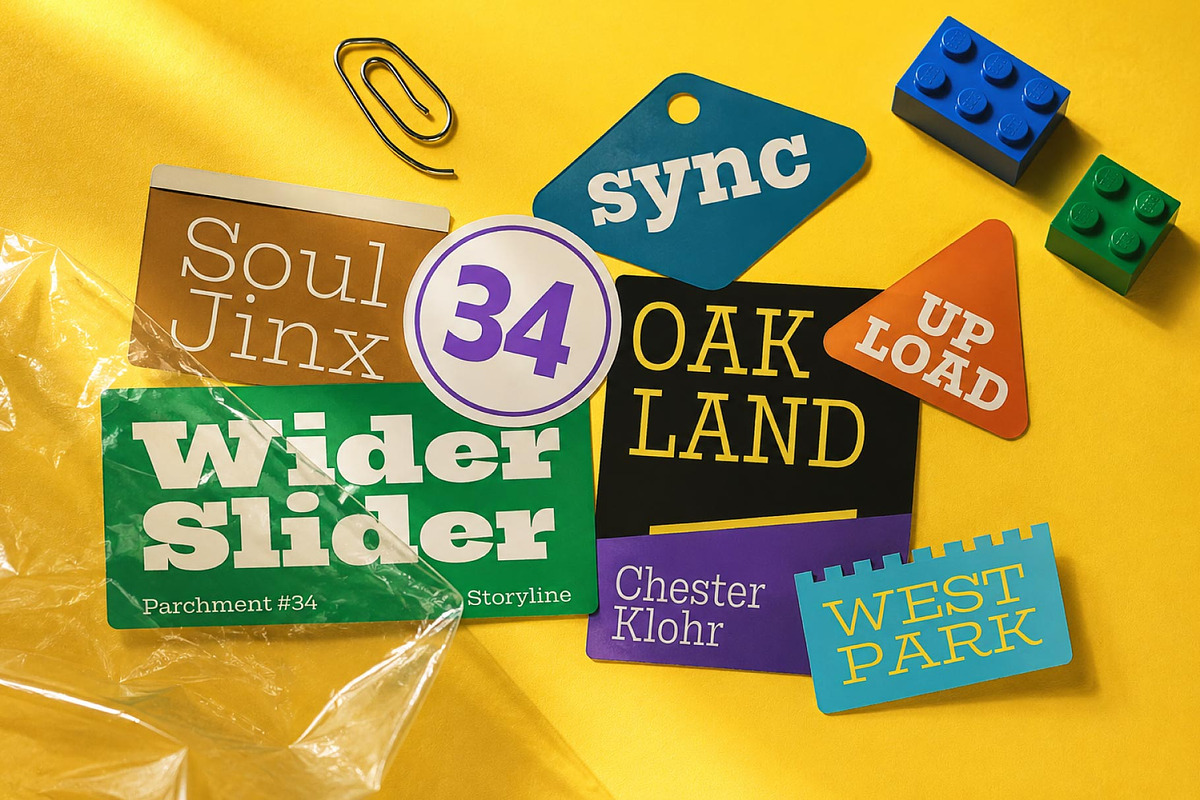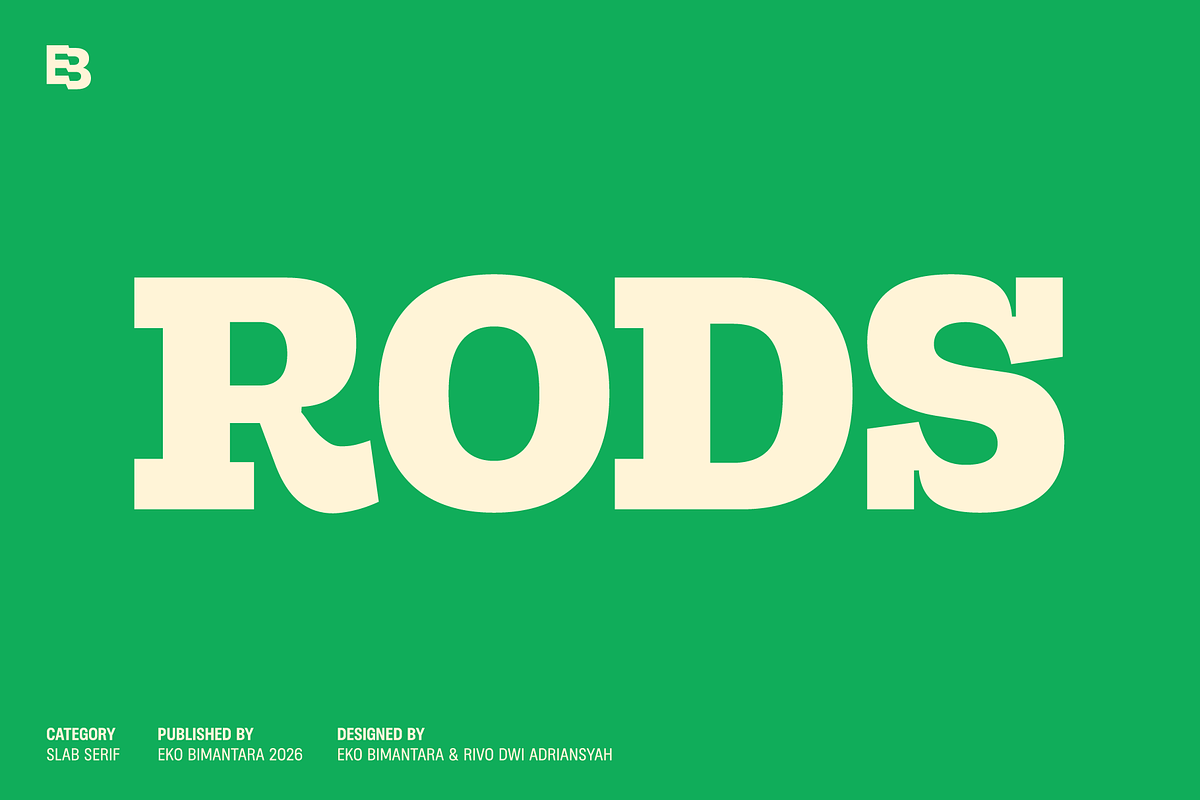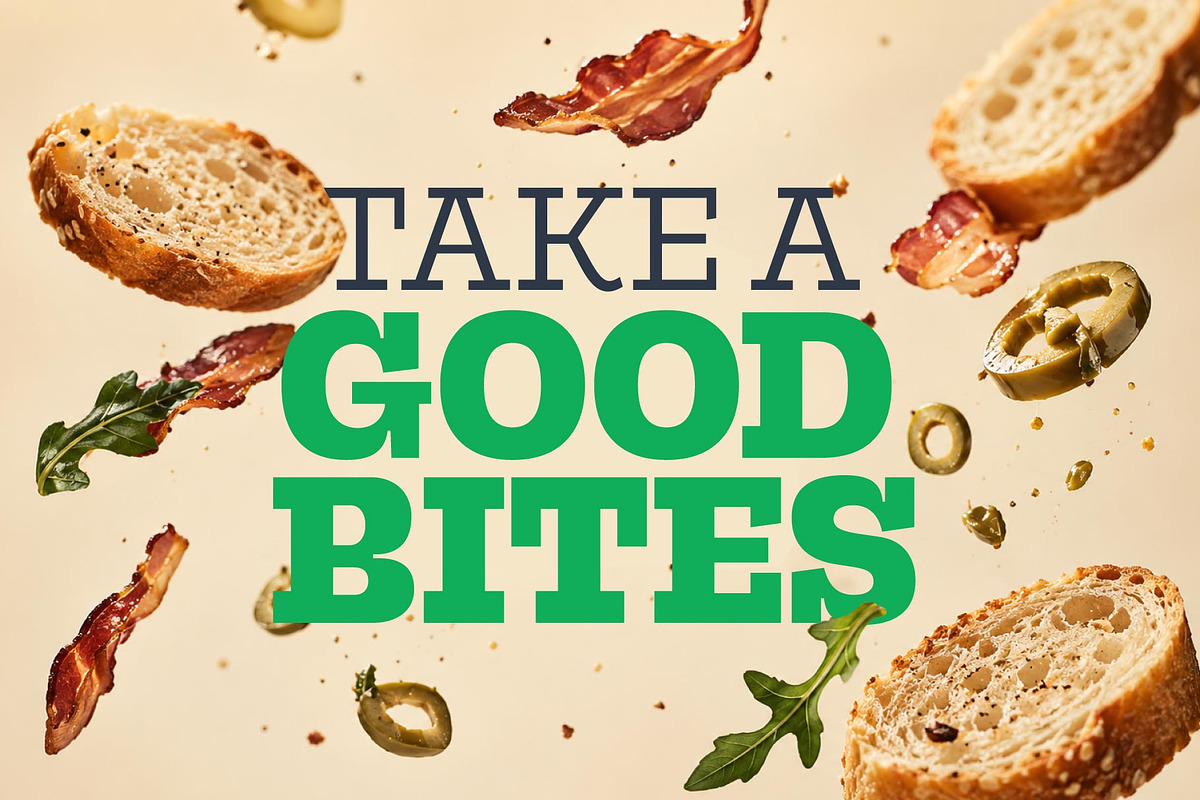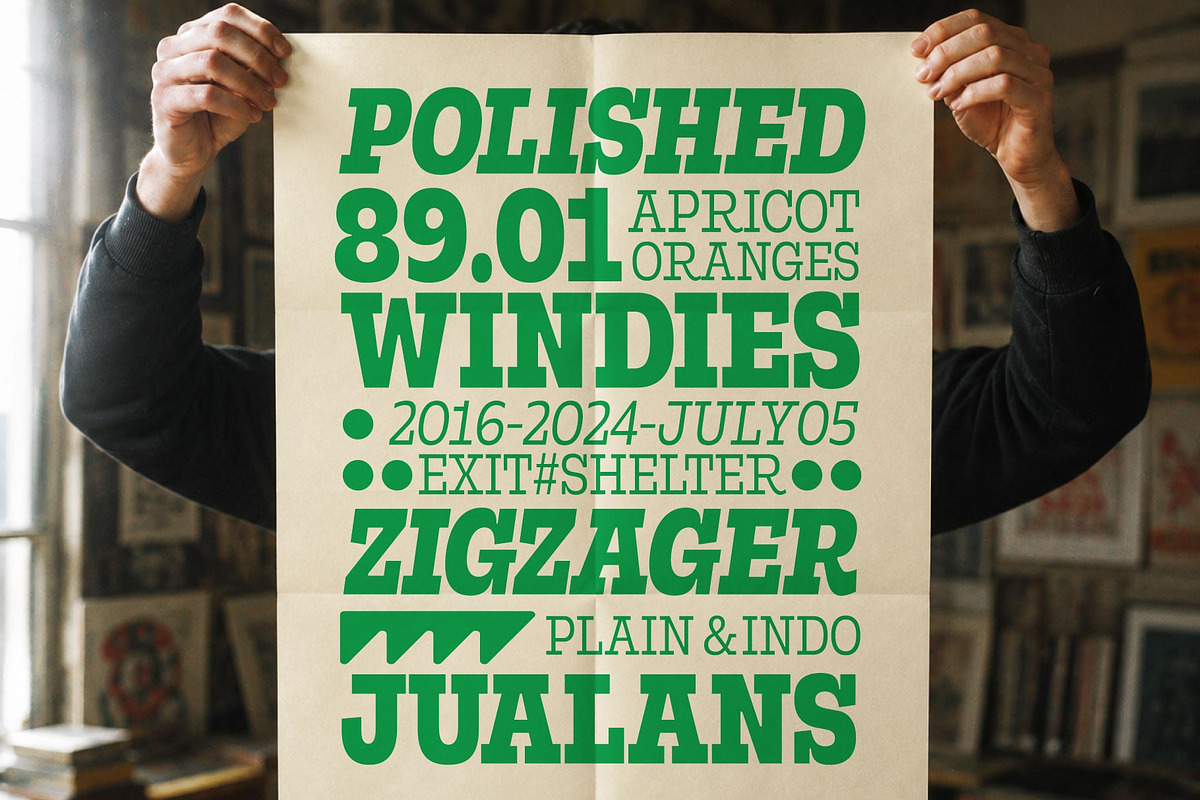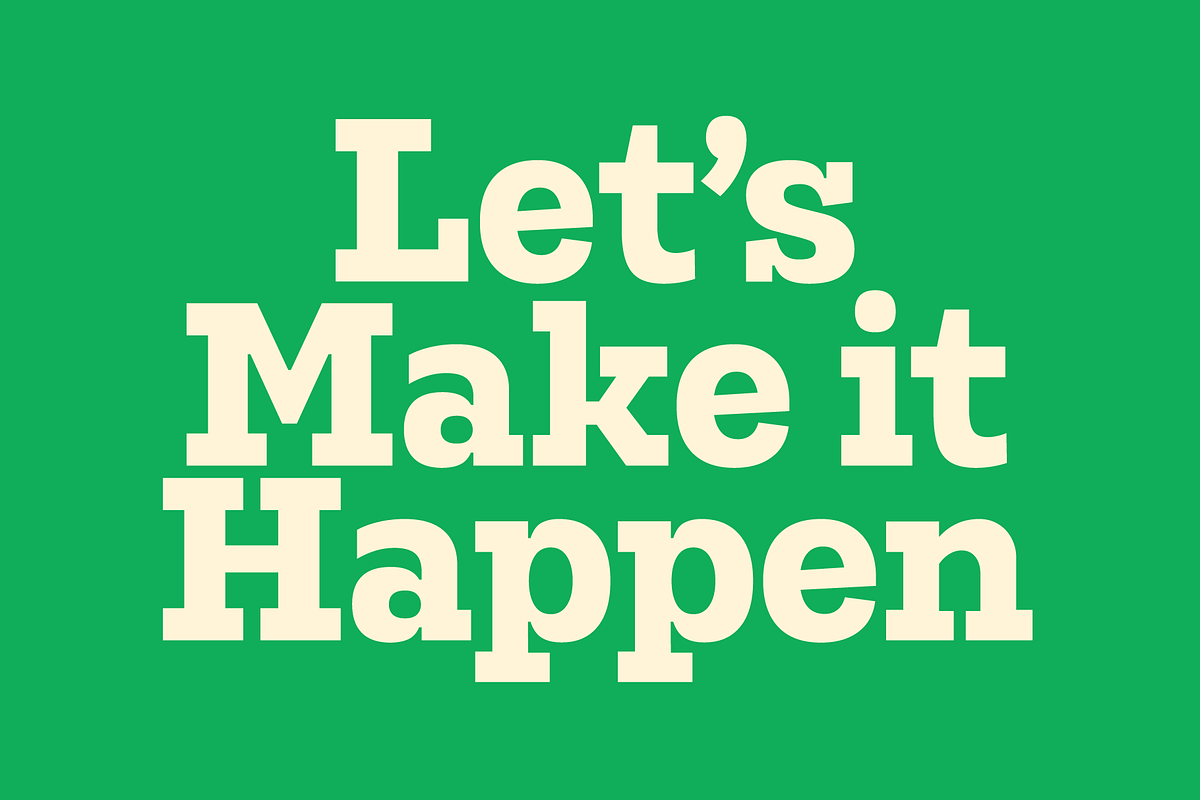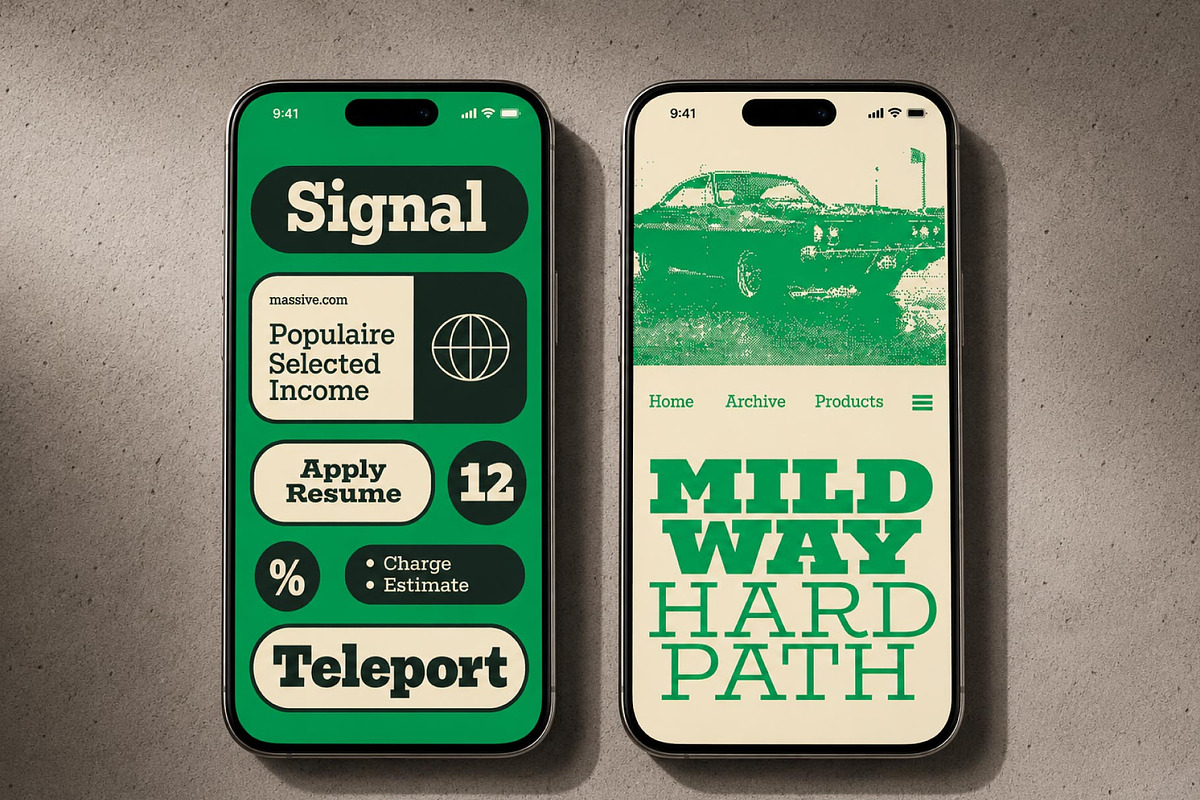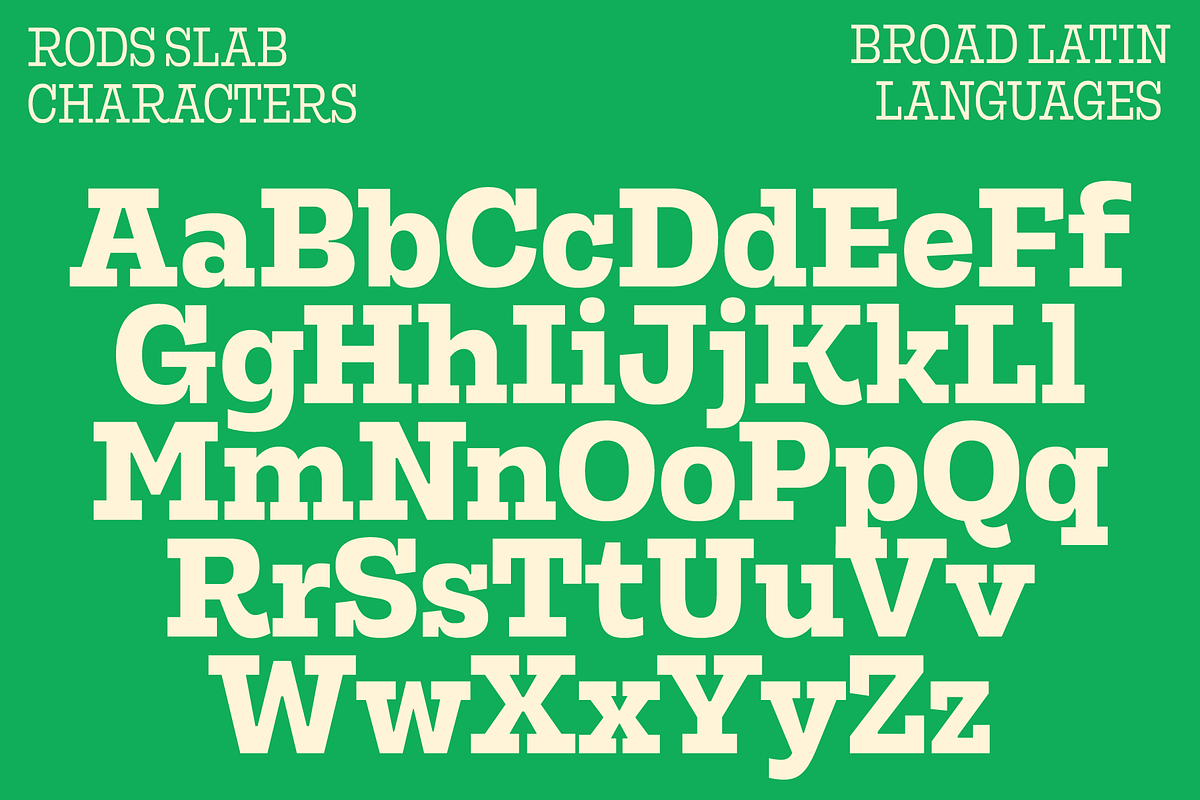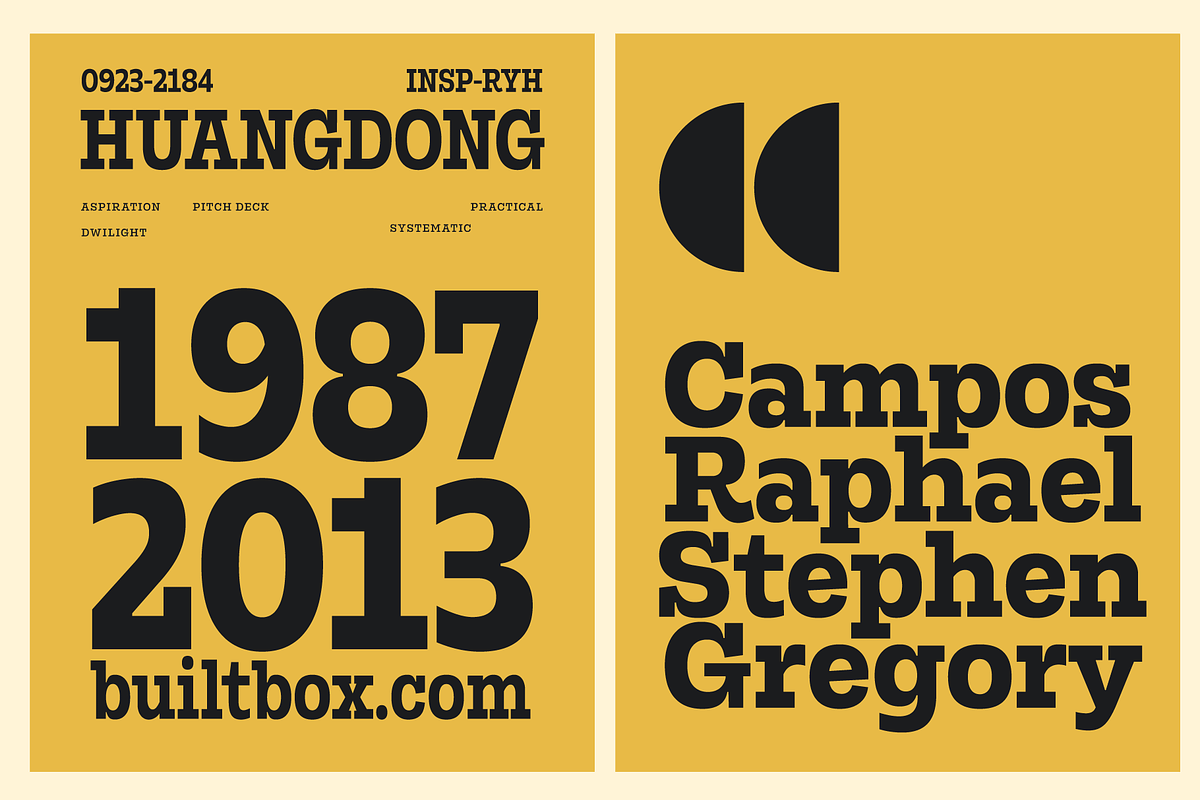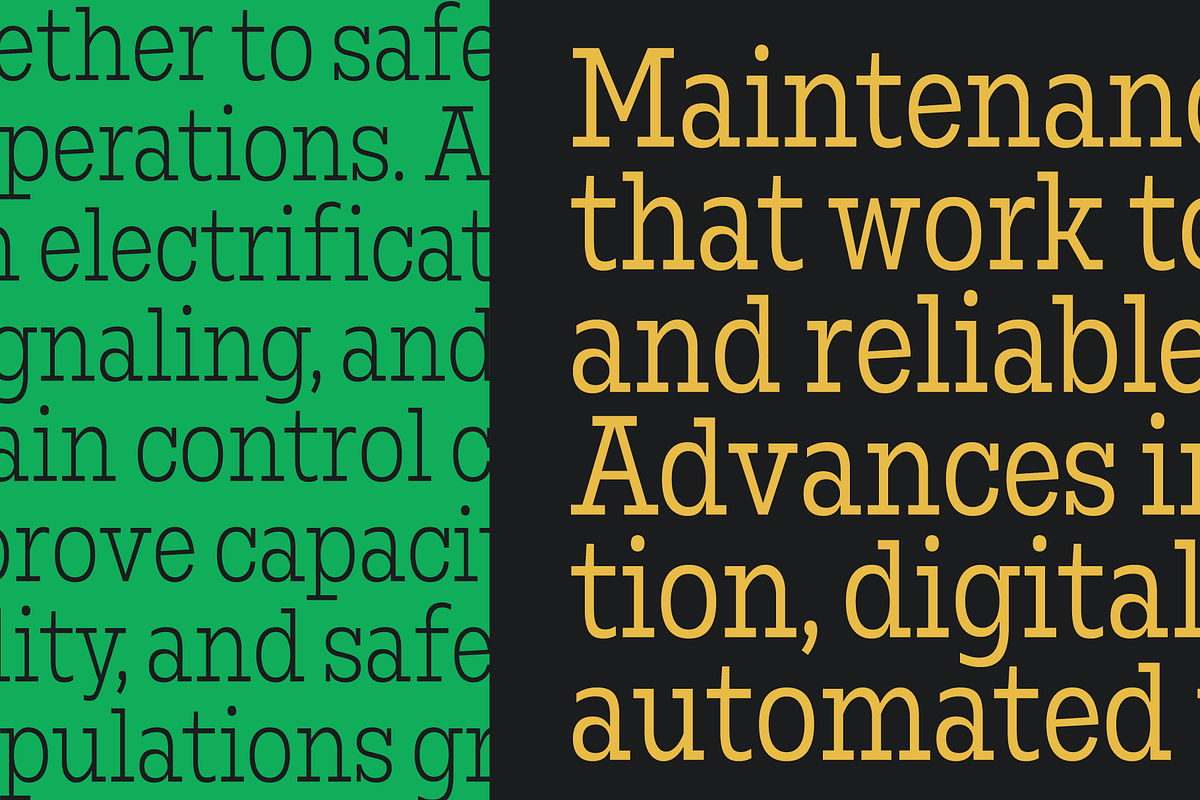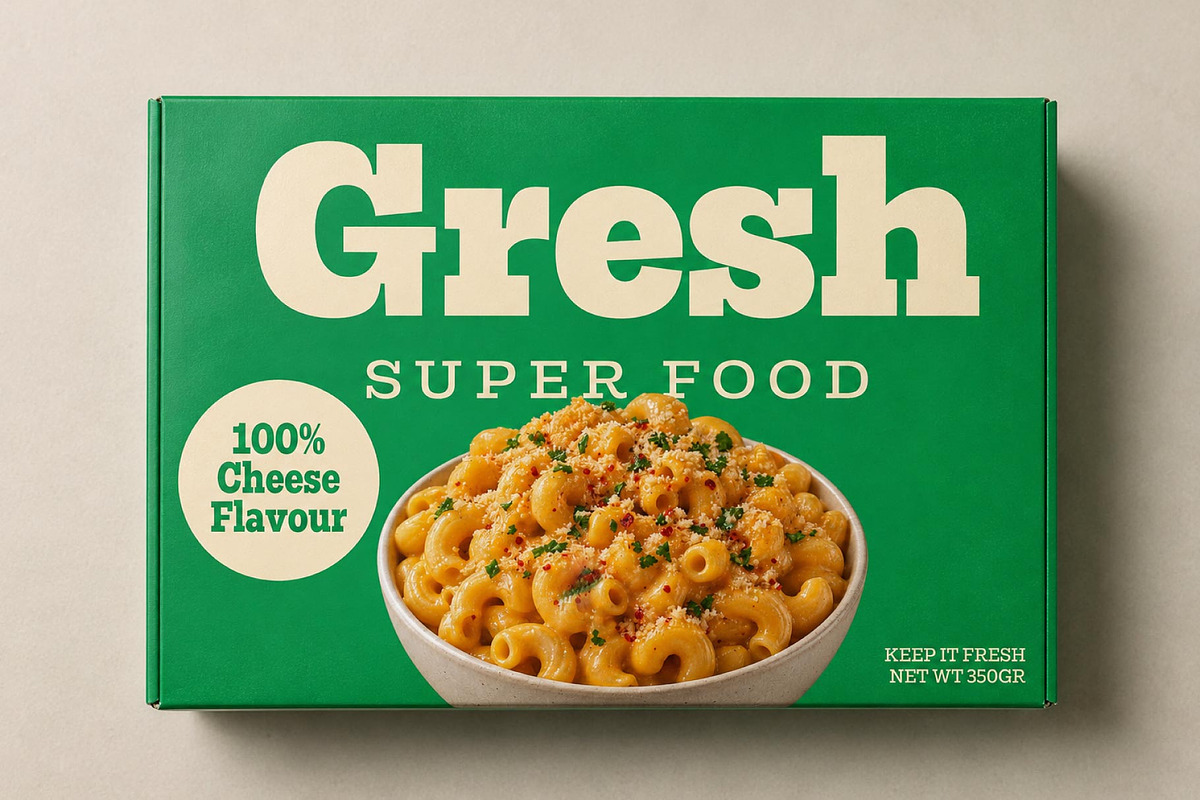
Rods; 72 Styles Slab Serif
Rods is a versatile slab serif font family that balances strong, bold forms with distinctive details and a contemporary character. Designed across an extensive range of 72 styles, it offers broad flexibility in both weight and width, from Thin to Black and Condensed to Wide, making it suitable for everything from expressive display typography to structured layouts. Its alternate characters and OpenType features provide additional ways to shape its personality, while the wide range of styles makes Rods a practical choice for branding, editorial design, packaging, advertising, websites, and other creative applications that call for a confident and distinctive typographic presence.